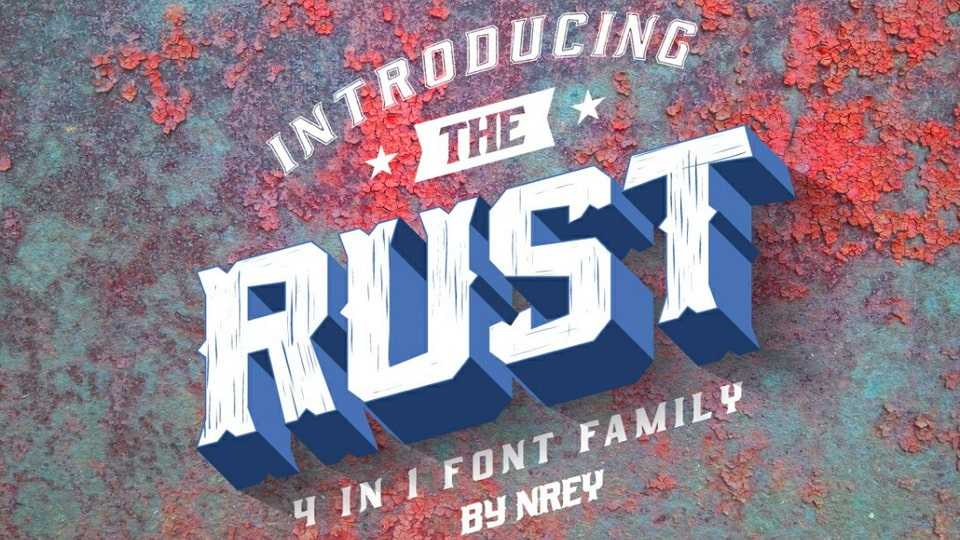
Download Rust font, a display typeface, that gives you strong and bold typography, inspired by team sport. Bright typeface for best captures, you may combine all Rust styles as you want.
Designer: Andrey Dykun